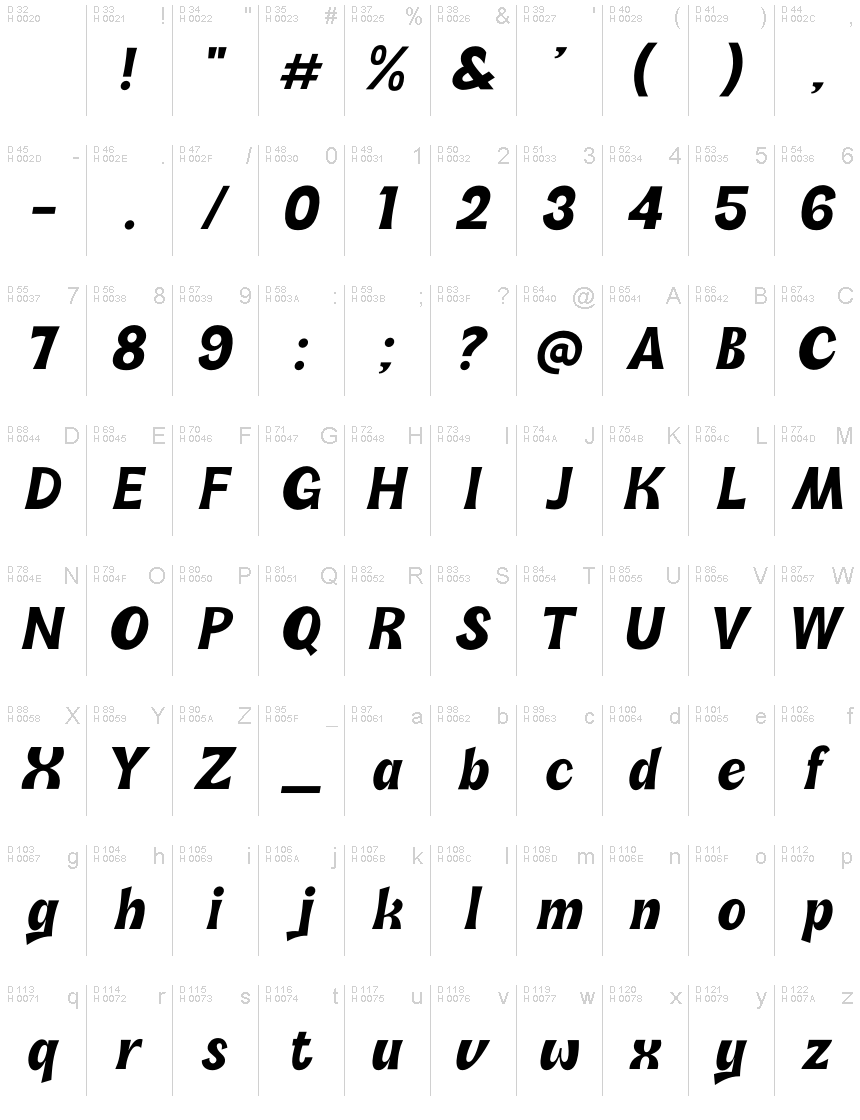
Soli Soleil Italic
Soli Soleil Italic, designed by sez_inn, is a bold statement in the realm of display fonts. With its groovy style that harks back to the era of expressive typography, this font carries a rhythmic flow in each character, making it visually dynamic and engaging. The bold weight of Soli Soleil Italic ensures that text stands out with confidence and flair.
This typeface exudes an aesthetic charm that can elevate various creative projects. Whether it's for stylish branding, eye-catching advertising, or retro-themed designs, Soli Soleil Italic is versatile enough to infuse energy and personality into your work. Its unique curvature and slanted posture offer a sense of movement and liveliness that can captivate an audience instantly.
Embrace the inventive spirit of Soli Soleil Italic for your next design venture and let its distinct appearance leave a lasting impression.